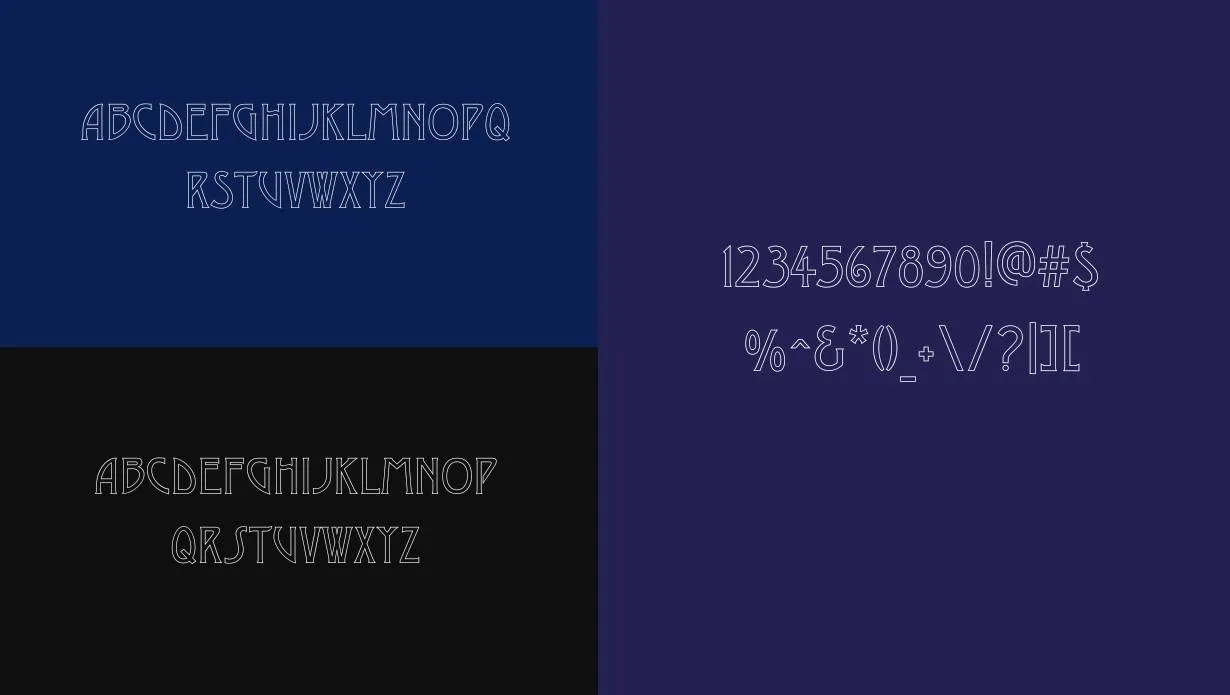
The Desdemona Font is a unique and artistic choice in typography. Its distinctive characters bring a touch of creativity and flair to any design. Whether used for branding or creative projects, this font adds a sense of individuality.
The Desdemona Font effortlessly becomes part of various design applications, conveying a distinct artistic expression that sets it apart from the ordinary.